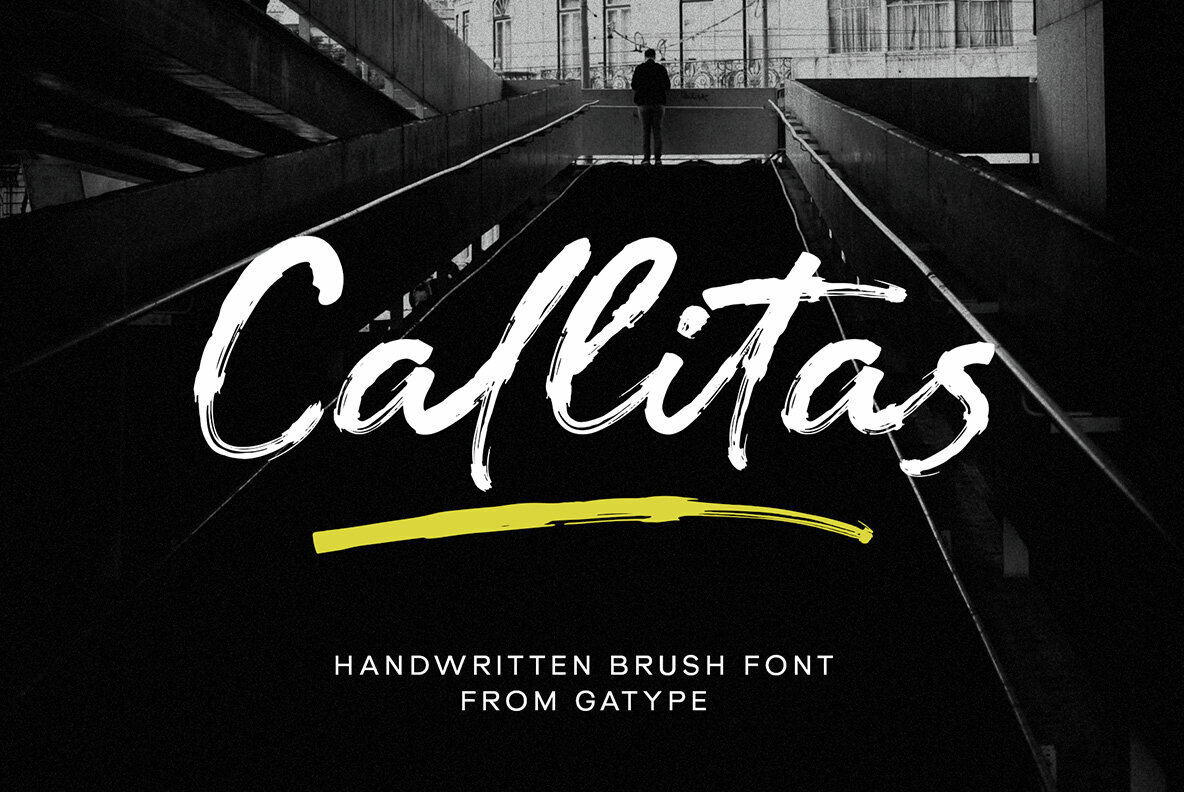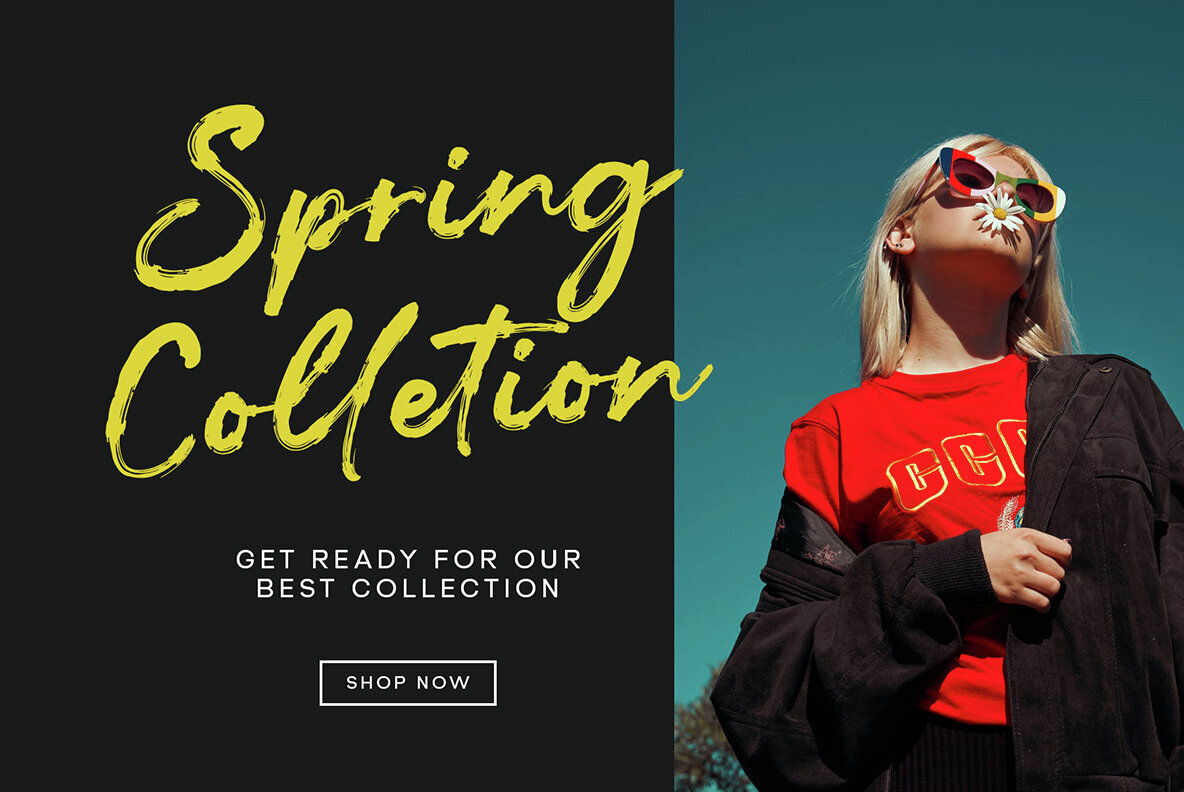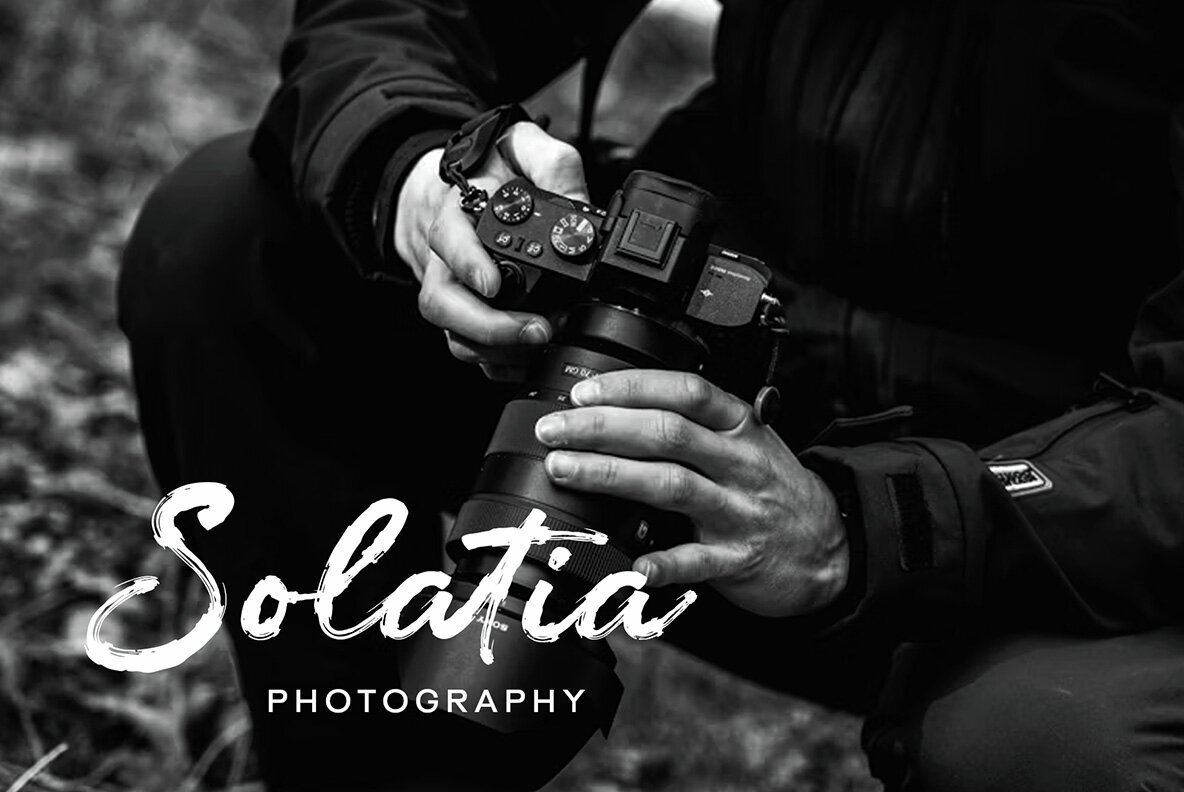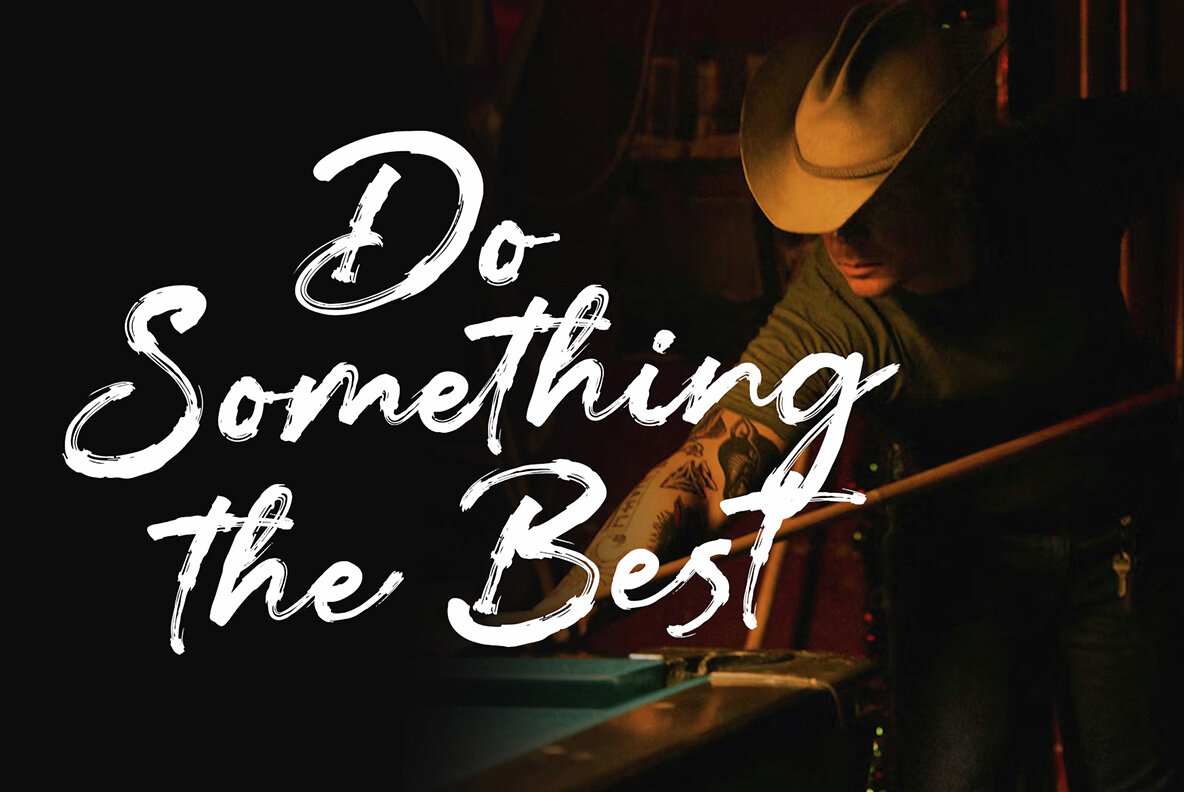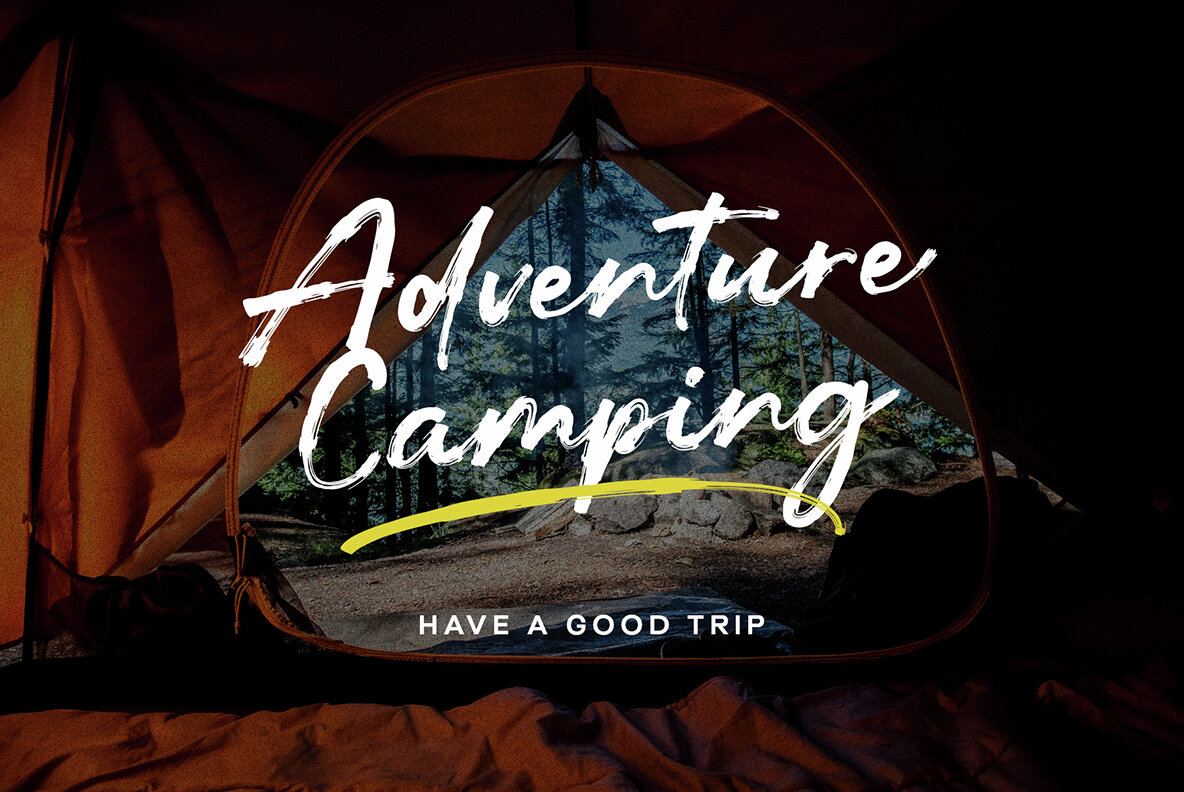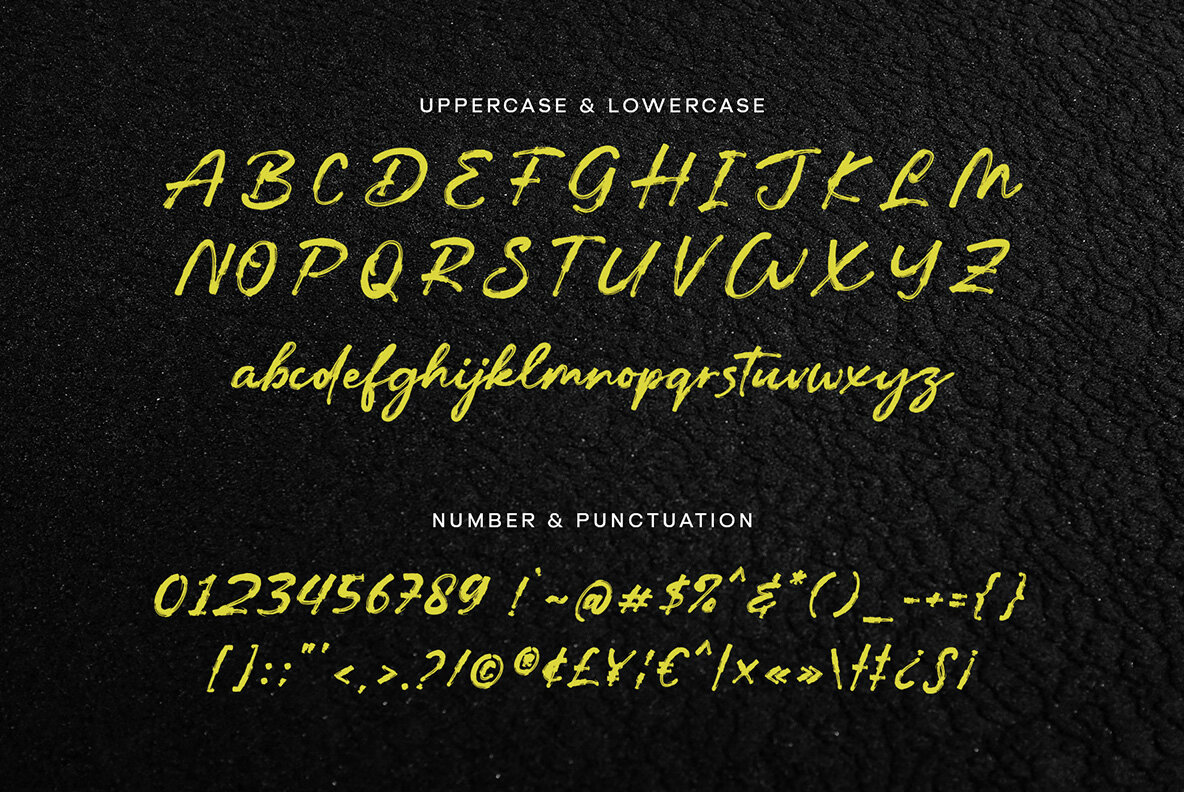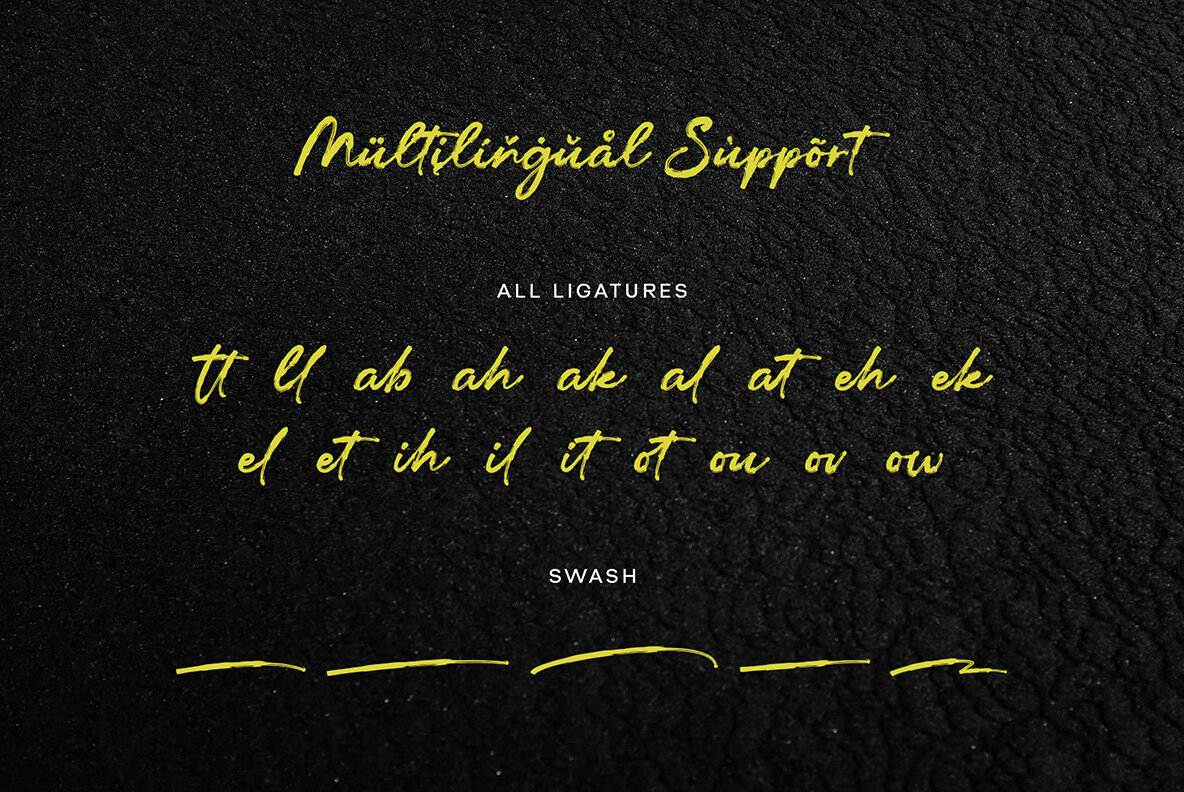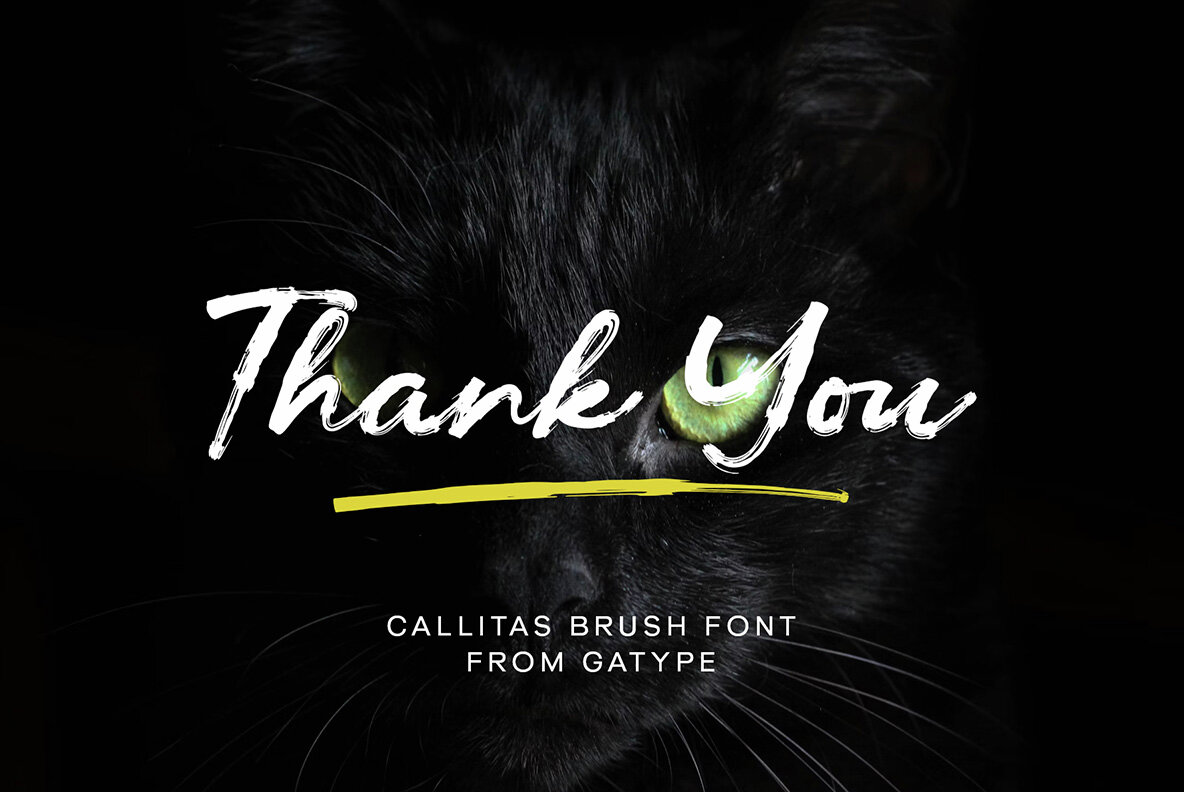
Callitas Font
Callitas
Callitas is a dynamic brush script font that captures an organic and authentic feel with each stroke. Originally crafted with a brush pen on paper, the characters are meticulously converted into a vector format, preserving their relaxed and natural essence. This font features two sets of lowercase letters, allowing for variety and a more genuine appearance in your designs. By enabling the Contextual Alternate feature in the OpenType panel, these two sets alternate randomly, enhancing your text's natural flow.
Additionally, Callitas offers a range of style options including underline alternatives, making your designs visually engaging. Available in two versions—Textured and Solid—each offers unique qualities. The Textured version provides a raw, dry brush pen effect, while the Solid version offers a cleaner, more refined look. Ideal for designers seeking versatility in a brush script, Callitas brings an authentic, handcrafted element to any project.